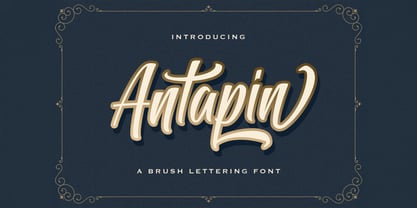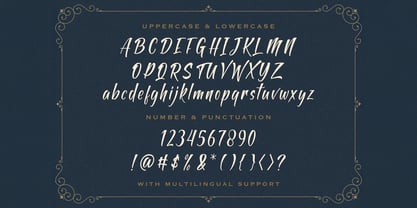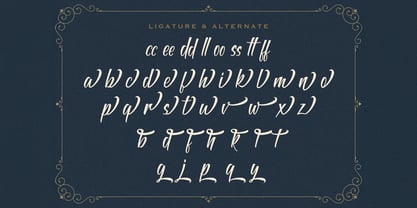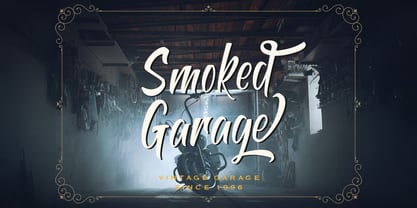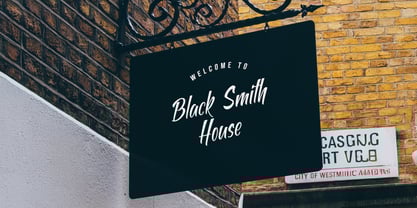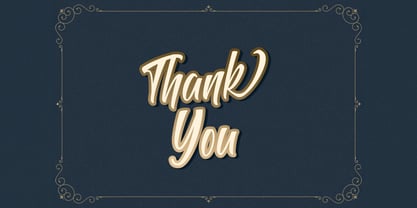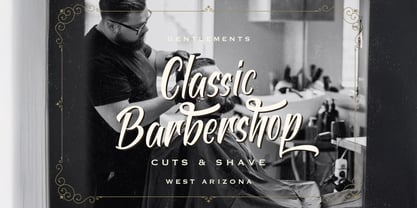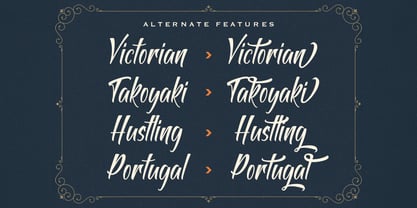
Die Schriftfamilie Antapin wurde von Virgiawan Listanto entworfen und von Stringlabs Creative Studio veröffentlicht. Antapin enthält 1 Stile.
Antapin is a bold script font that blends power and style in every stroke. With its strong curves, smooth flow, and retro-inspired character, this font is designed to make your message pop with personality and flair. Perfect for standout logos, eye-catching posters, and trendy merchandise, Antapin brings a dynamic and expressive edge to any creative project.